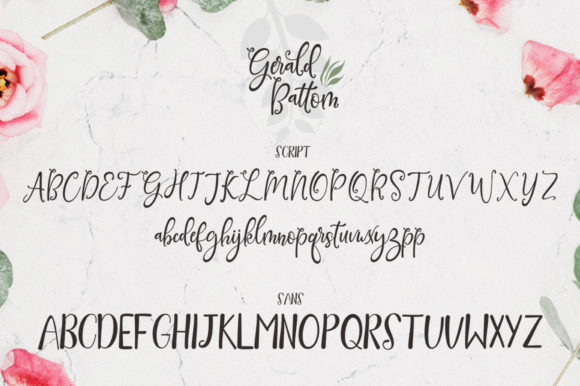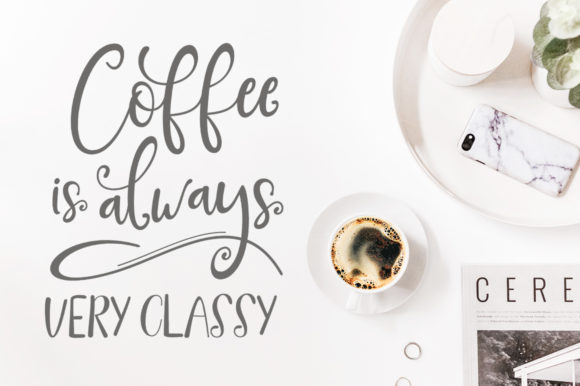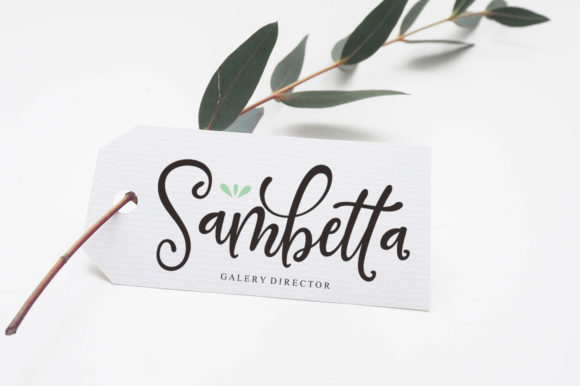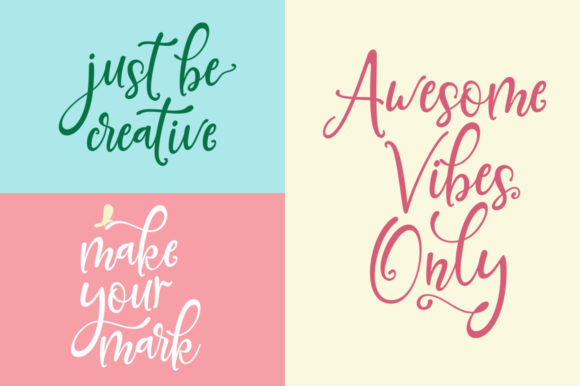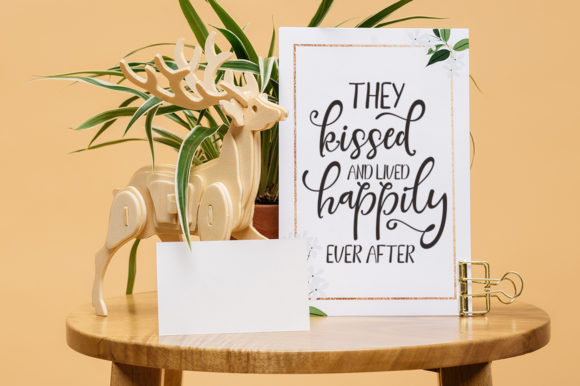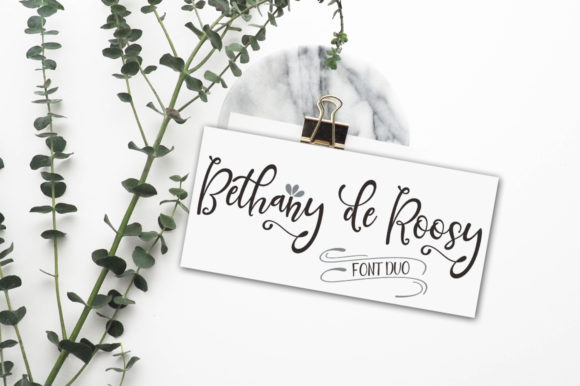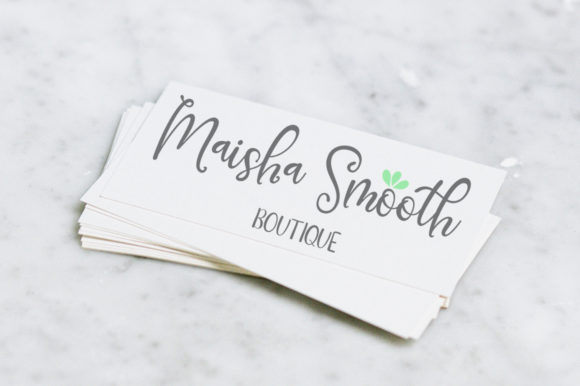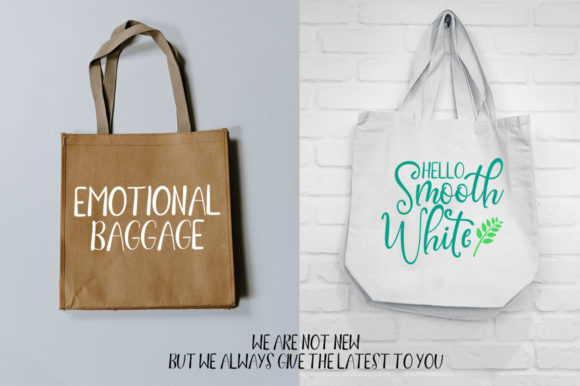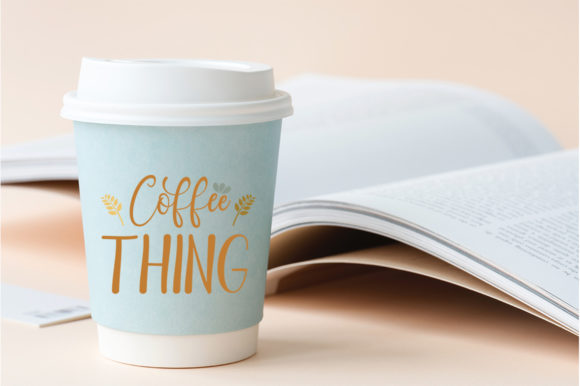
Gerald Battom Font
About Gerald Battom Font
Gerald Battom is a script sans font duo that will satisfy all your creative needs! Use it to add a delicate touch to your wedding invitations, cards, branding and so much more.